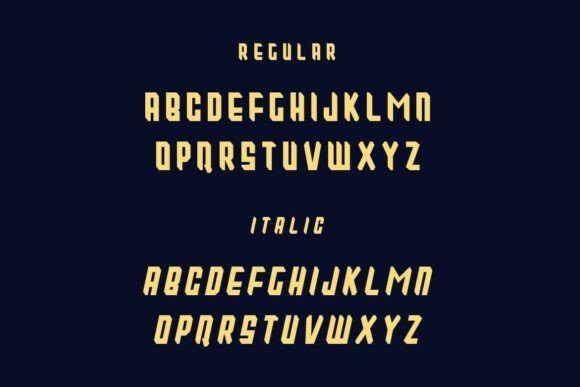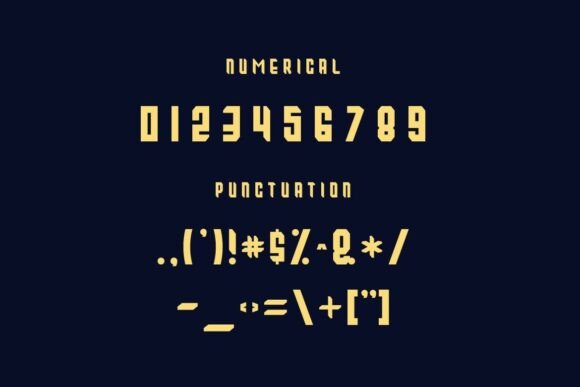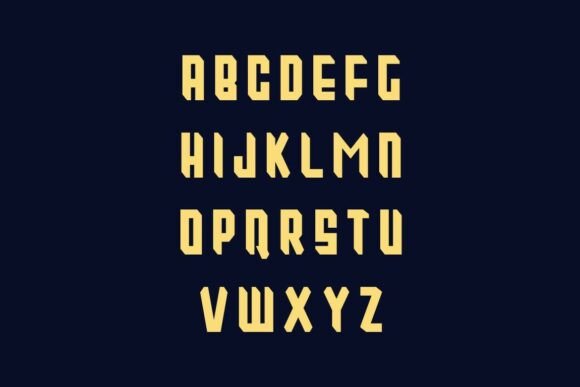
The Power of Avalanche Font: A Designer’s Best Friend
I’ll never forget the time I was working on a sports branding project, and my client asked for a font that would make their logo stand out on a crowded stadium billboard. I scoured the internet, trying out font after font, but nothing seemed to have the right combination of boldness and clarity. That was until I stumbled upon Avalanche font. With its thick strokes, solid structure, and clean lines, it was the perfect choice for the job. In this article, I’ll share my experience with Avalanche font, its features, and how to make the most of it in your designs.
An Honest Review of Avalanche Font
• ✨ Bold and commanding presence: Avalanche font is designed to make a statement, and it delivers. Its thick strokes and solid structure make it perfect for headlines, logos, and any design that demands attention.
• ✅ Clean and precise lines: The font’s clean lines and geometric shape make it easy to read, even at small sizes.
• 💪 Versatility: Avalanche font is suitable for a wide range of design projects, from sports branding and posters to apparel and digital designs.
While Avalanche font is an excellent choice for many design projects, it’s not without its quirks. Here are a few things to keep in mind:
• 🤔 Limited flexibility: While Avalanche font has a range of weights and styles, it’s not the most flexible font out there. If you need a font that can be used for body text or in a variety of contexts, you might want to consider an alternative.
• ⚠️ Overuse can be overwhelming: Because Avalanche font is so bold and commanding, it can be overwhelming if overused. Make sure to balance it with other design elements to create visual interest.
A Practical Guide to Using Avalanche Font
If you like Avalanche font, you might also consider the following alternatives:
• Montserrat: A sleek and modern sans-serif font with a similar geometric feel to Avalanche. Use Montserrat for designs that require a more subtle approach.
• Impact: A classic bold font with a similar commanding presence to Avalanche. Use Impact for designs that require a strong, attention-grabbing headline.
• Akzidenz-Grotesk: A clean and precise sans-serif font with a similar industrial feel to Avalanche. Use Akzidenz-Grotesk for designs that require a more technical or scientific approach.
• Arial Black: A bold and sturdy font with a similar boldness to Avalanche. Use Arial Black for designs that require a strong, no-nonsense approach.
The Story Behind Avalanche Font
Avalanche font was designed by a team of typographers who wanted to create a font that would make a statement. Inspired by the rugged beauty of the mountains, they crafted a font that’s both bold and precise. With its thick strokes and clean lines, Avalanche font is perfect for designs that demand attention.
Q: What is Avalanche font best used for?
A: Avalanche font is best used for designs that require a bold and commanding presence, such as headlines, logos, and sports branding.
Q: Can I use Avalanche font for body text?
A: While Avalanche font is not typically used for body text, it can be used in certain contexts where a bold and clear font is required. However, it’s generally recommended to use a more traditional body font for readability.
Q: Is Avalanche font suitable for digital designs?
A: Yes, Avalanche font is suitable for digital designs, including websites, social media graphics, and digital signage.